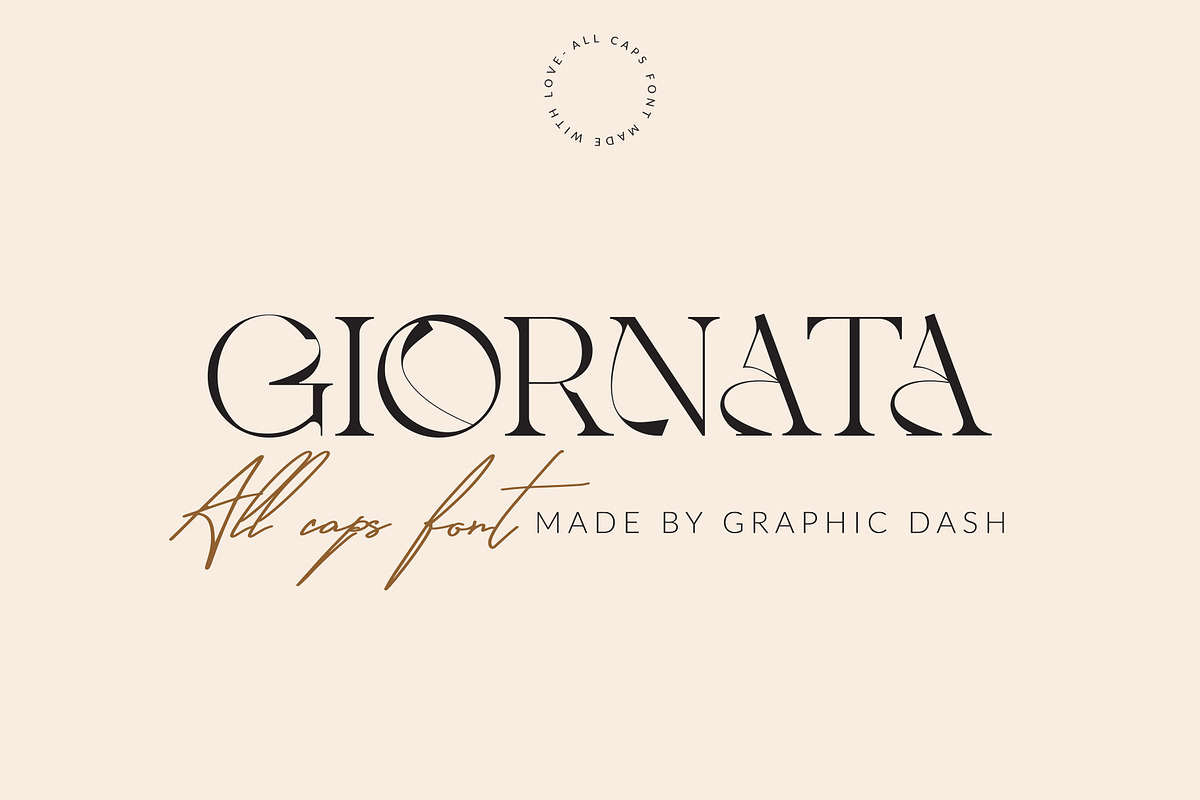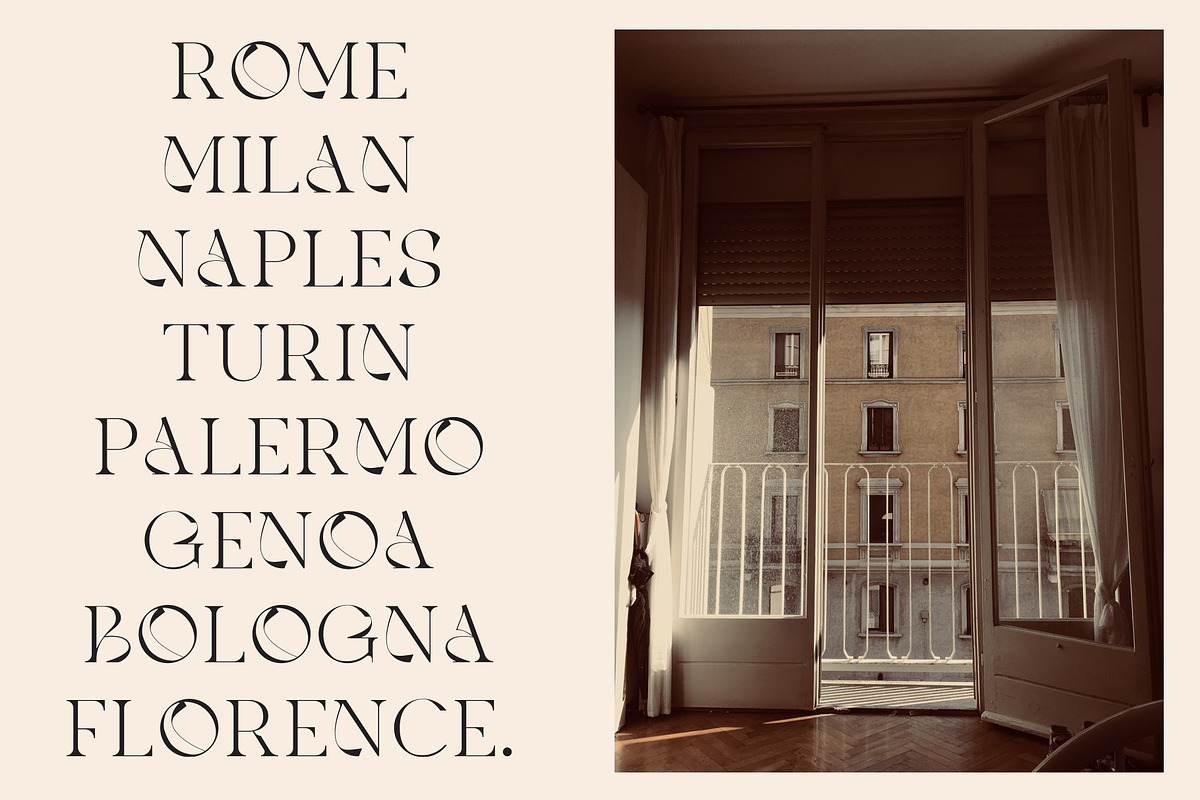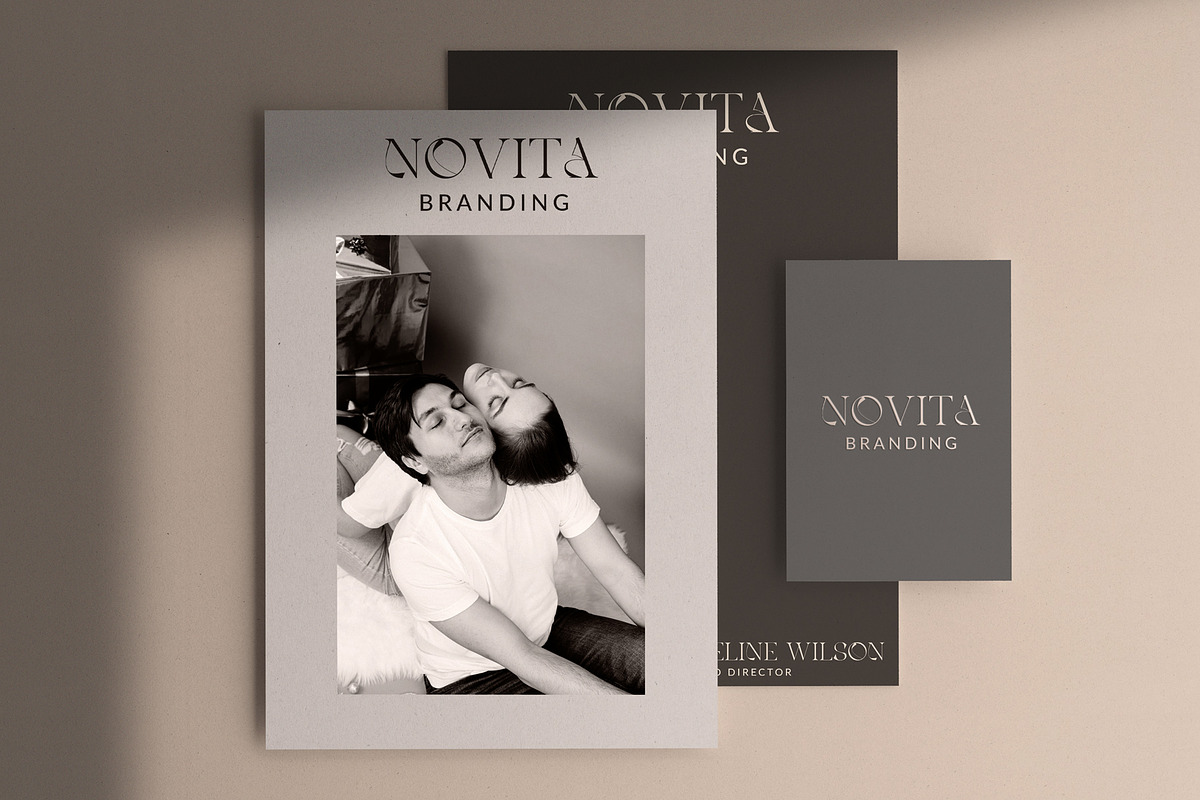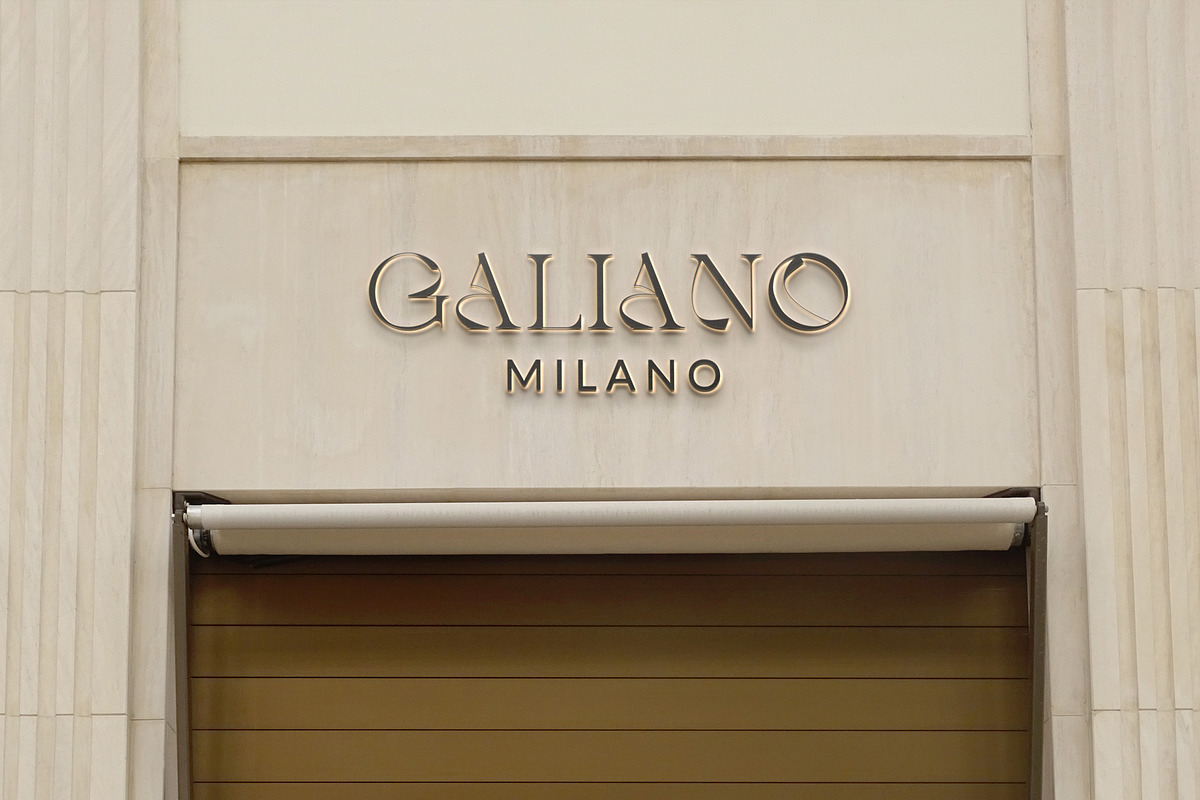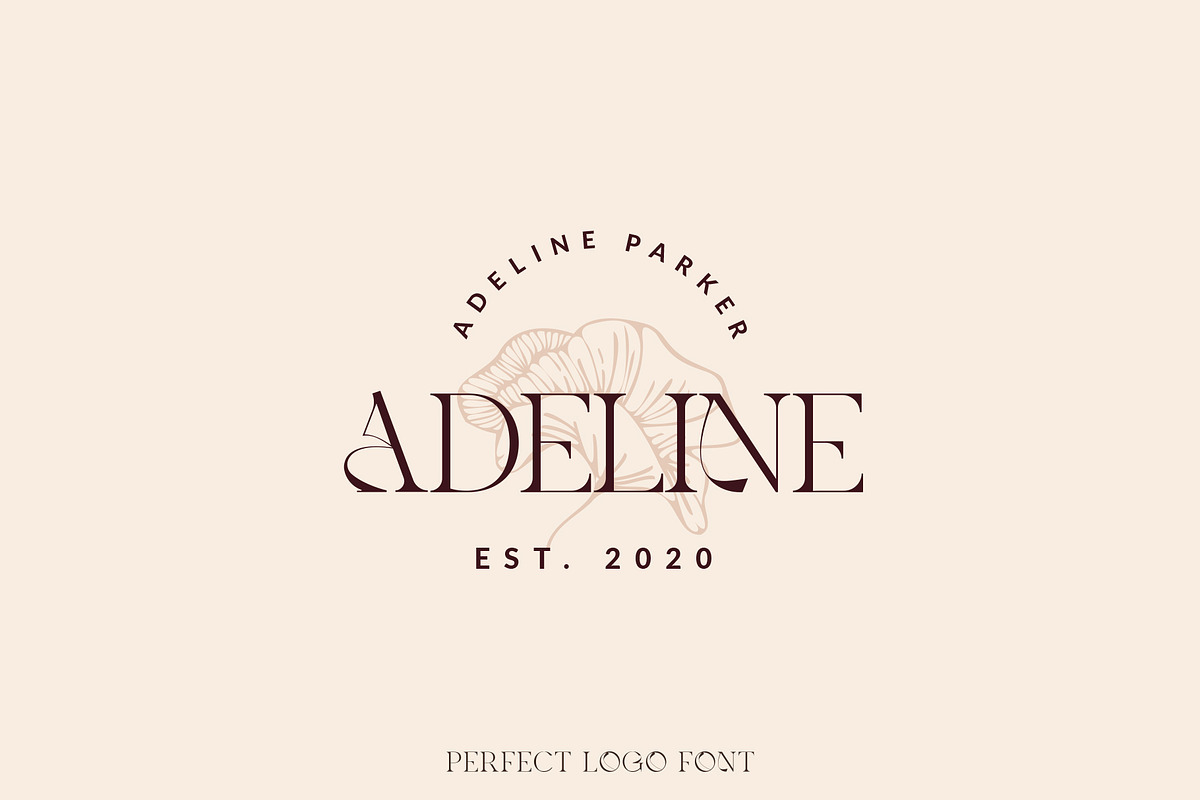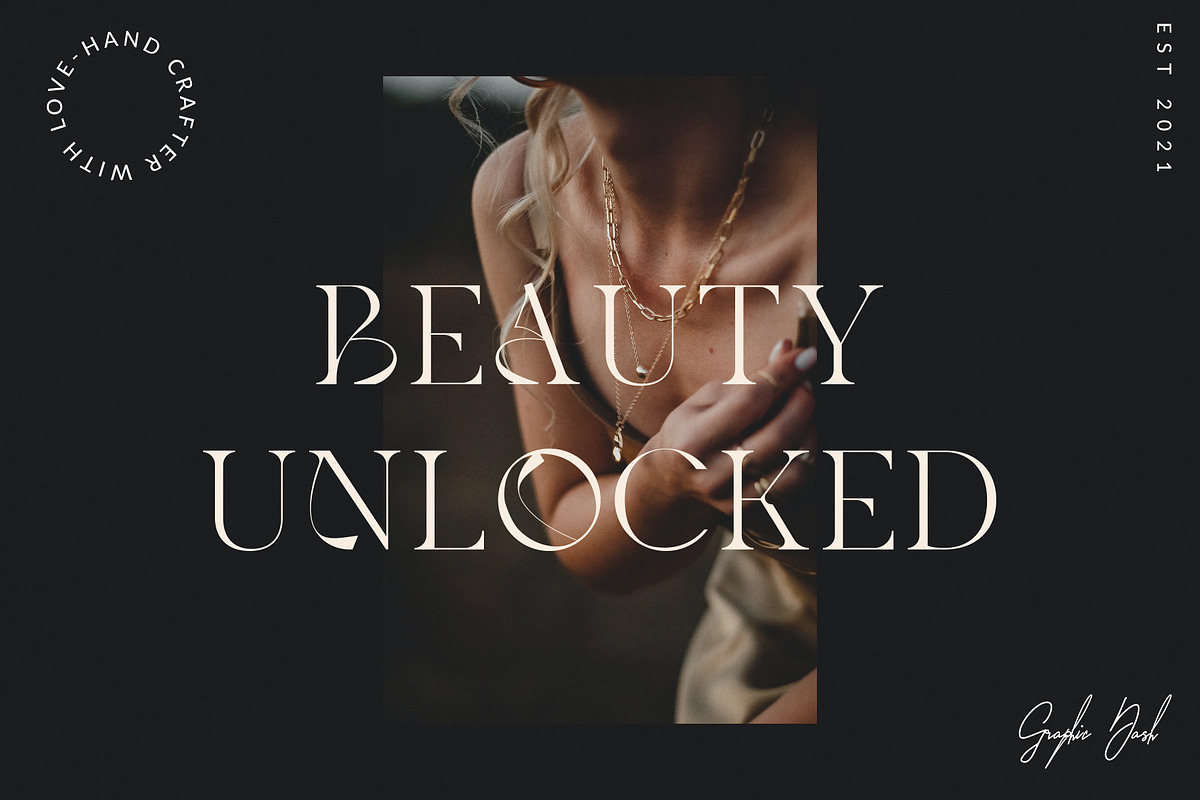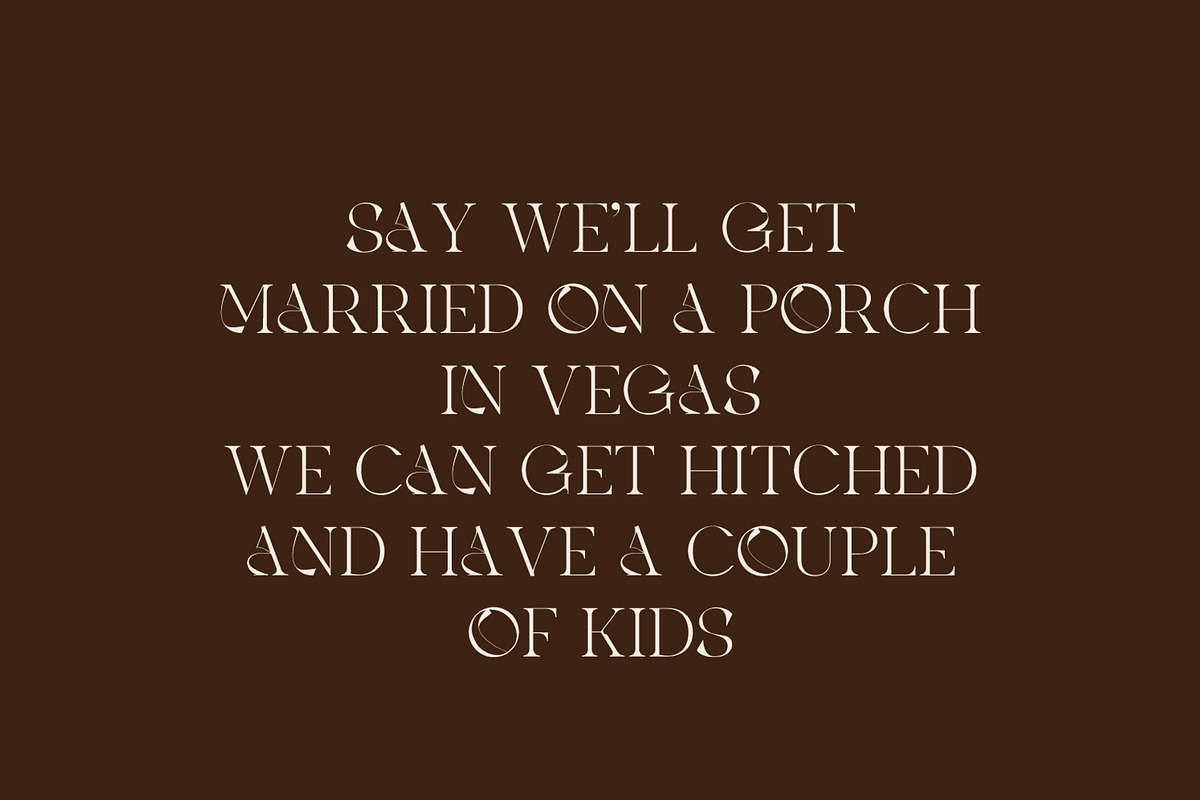
Giornata - All Caps Elegant Font
Giornata is a versatile, modern, and elegant font.
Create unique & beautiful logotype, use it as an elegant solution for your next magazine layout, or choose Giornata for any graphics that require a sleek look with an elegant flair.